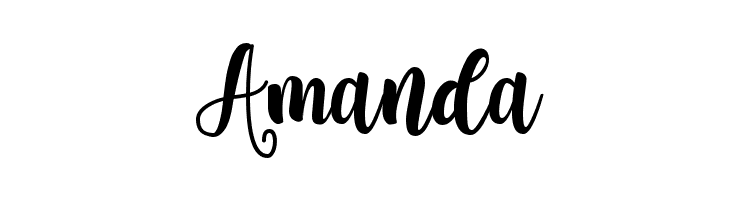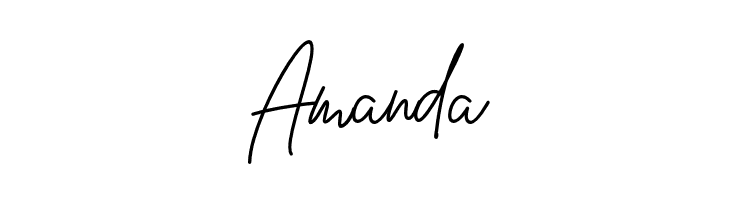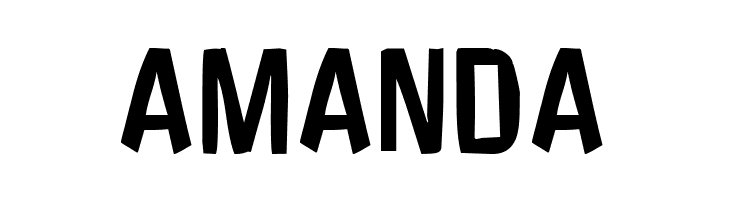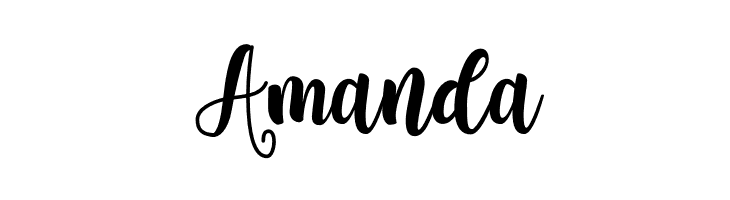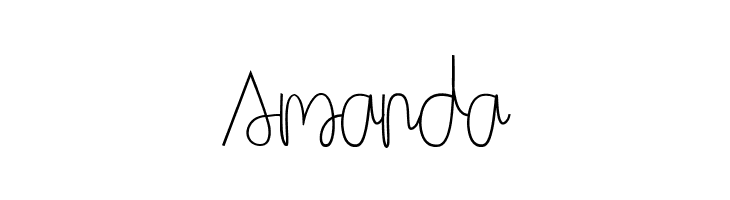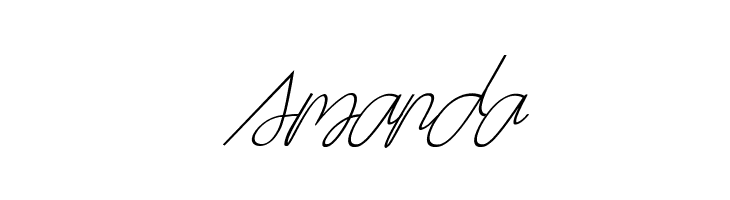
A bold, flowing script font with a handwritten appearance.
A flowing, cursive font with elegant, elongated letterforms and a handwritten appearance.
A playful, handwritten font with rounded, organic letterforms.
An elegant, cursive font with fluid strokes and a sophisticated style.
An elegant script font with flowing, interconnected letters and ornate flourishes.
A bold, expressive handwritten font with fluid, artistic letterforms.
A bold, flowing script font with elegant curves and high contrast.
A playful, elegant script font with a handwritten feel and decorative swirls.
A fluid and elegant script font with a handwritten appearance.
A lively and elegant script font with flowing, interconnected letters.
A bold, expressive script font with high contrast and decorative flourishes.
A dynamic and elegant script font with high contrast and flowing letterforms.
An elegant and whimsical font with intricate swirls and loops.
A delicate and elegant handwritten font with flowing cursive letters.
A bold, flowing script font with elegant, connected letters.
Expressive script font with ornate swashes and artistic flair.
A bold, brush-style font with dynamic, hand-drawn strokes.
A playful, whimsical handwritten font with flowing strokes.
A flowing, cursive font with elegant curves and a handwritten style.
A graceful handwritten font with fluid, connected letterforms and a sophisticated style.
A lively, expressive handwritten font with fluid, dynamic strokes.
A delicate and flowing script font with elegant, cursive letterforms.
A playful, handwritten script font with smooth, rounded edges.
A bold, outlined font with a playful and modern style.
Bold, modern font with a slightly condensed style and uniform stroke width.
A playful and elegant script font with decorative flourishes and high contrast.
A lively and expressive handwritten font with dynamic strokes.
A lively and expressive script font with flowing, interconnected letterforms.
An elegant script font with high contrast and flowing, cursive style.
A playful, handwritten font with a whimsical and flowing style.
A playful, hand-drawn font with thin, flowing lines and a whimsical style.
A flowing, cursive italic font with interconnected letters and a delicate, elegant style.
A flowing, elegant script font with a handwritten appearance.
A flowing, cursive font with elegant, artistic flair and dynamic contrast.
A playful, bubbly font with bold, rounded characters perfect for fun designs.